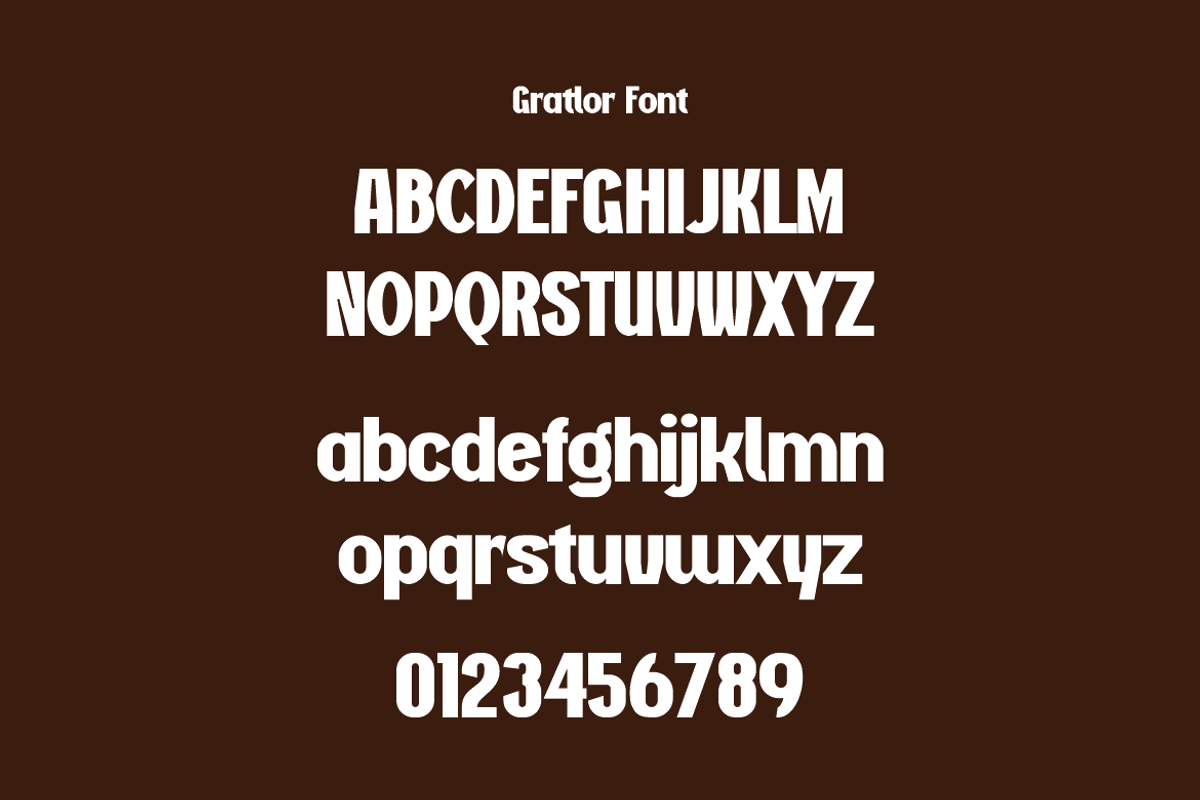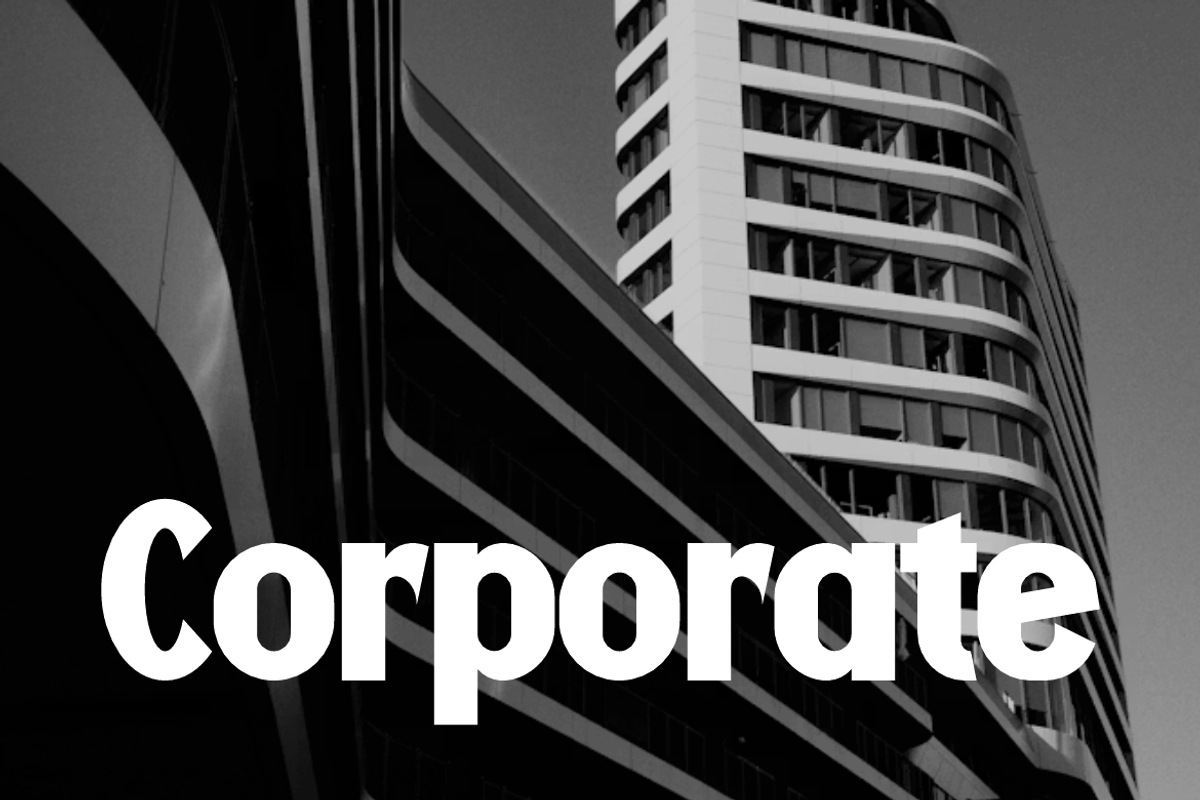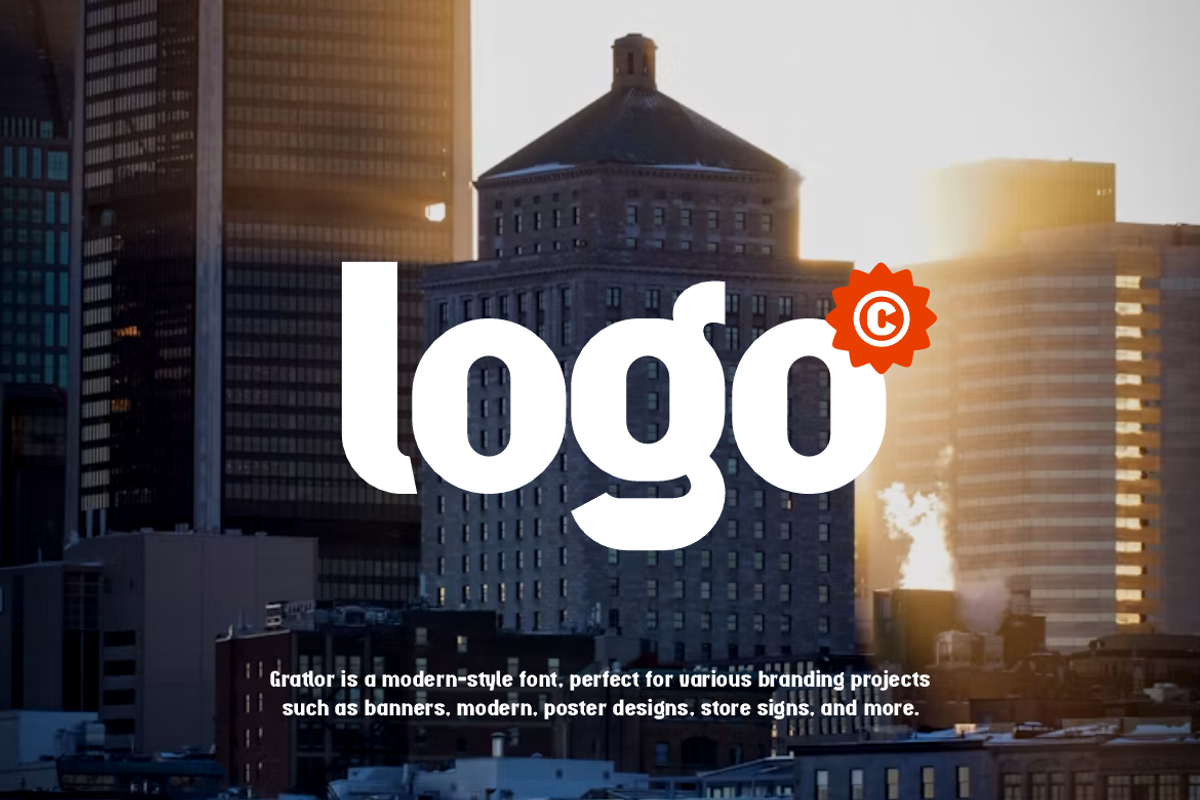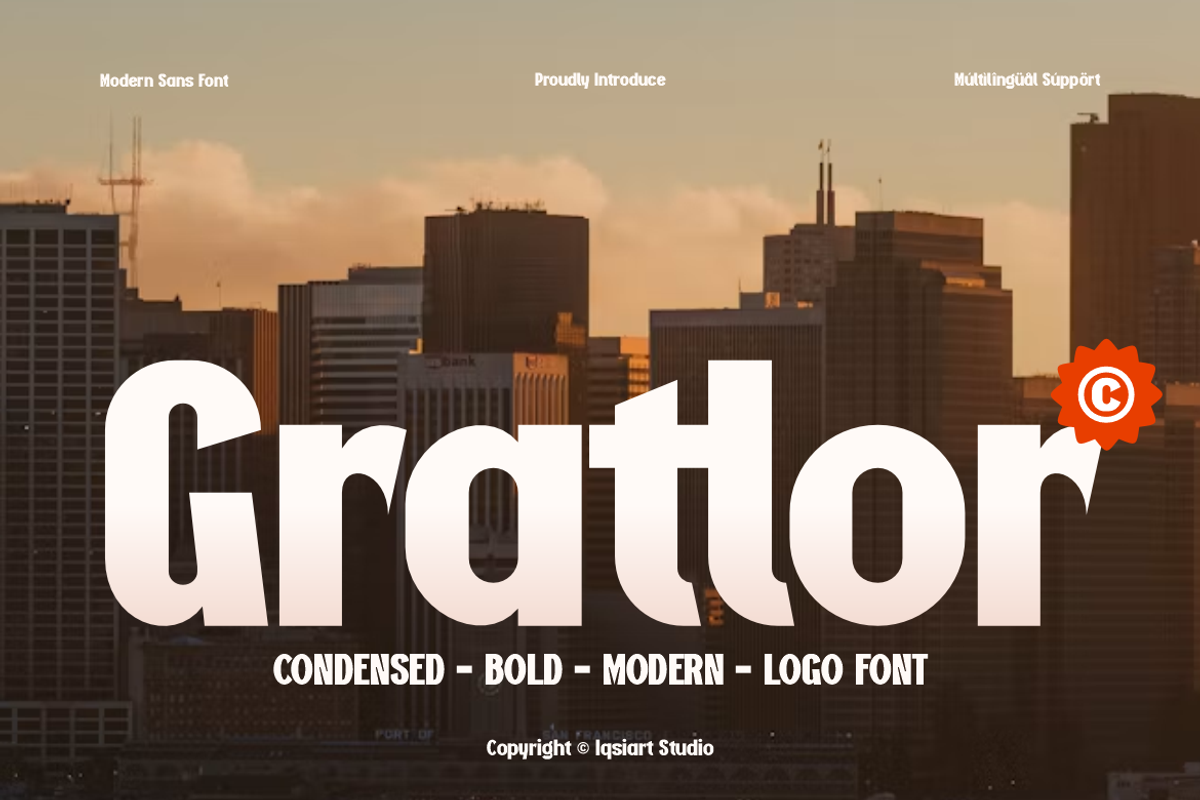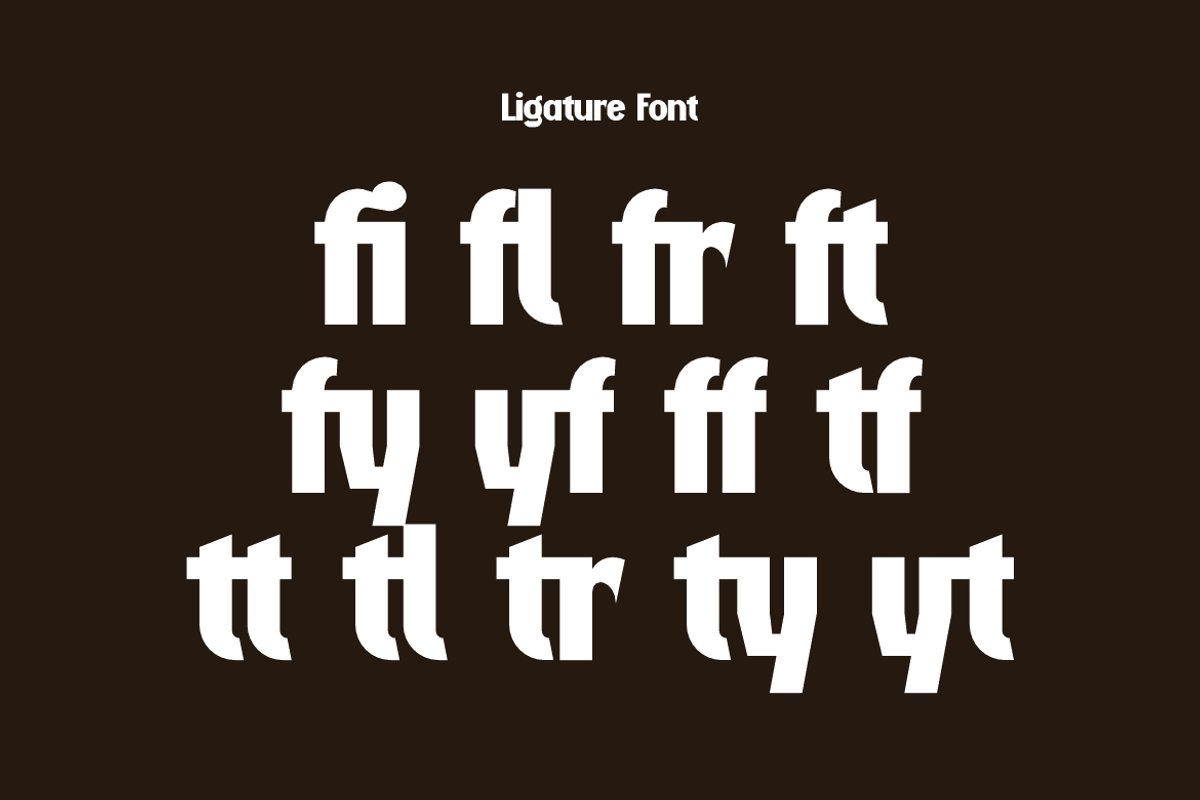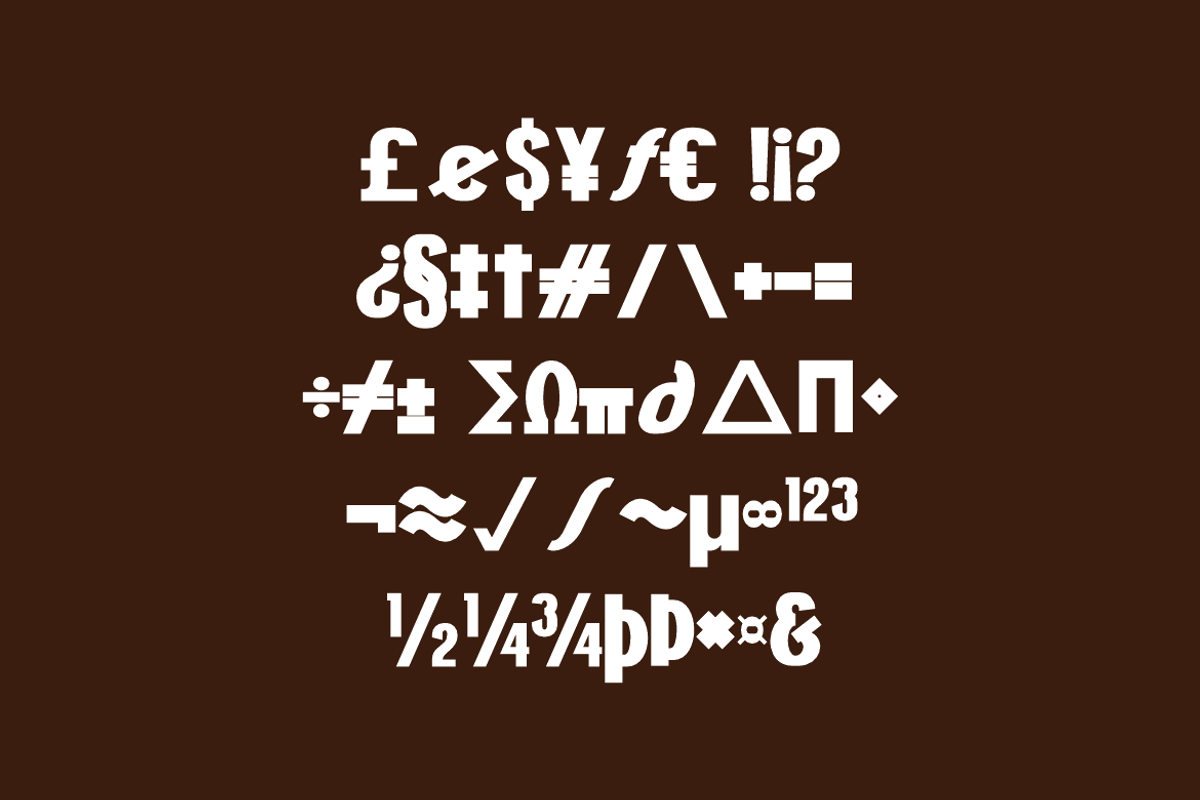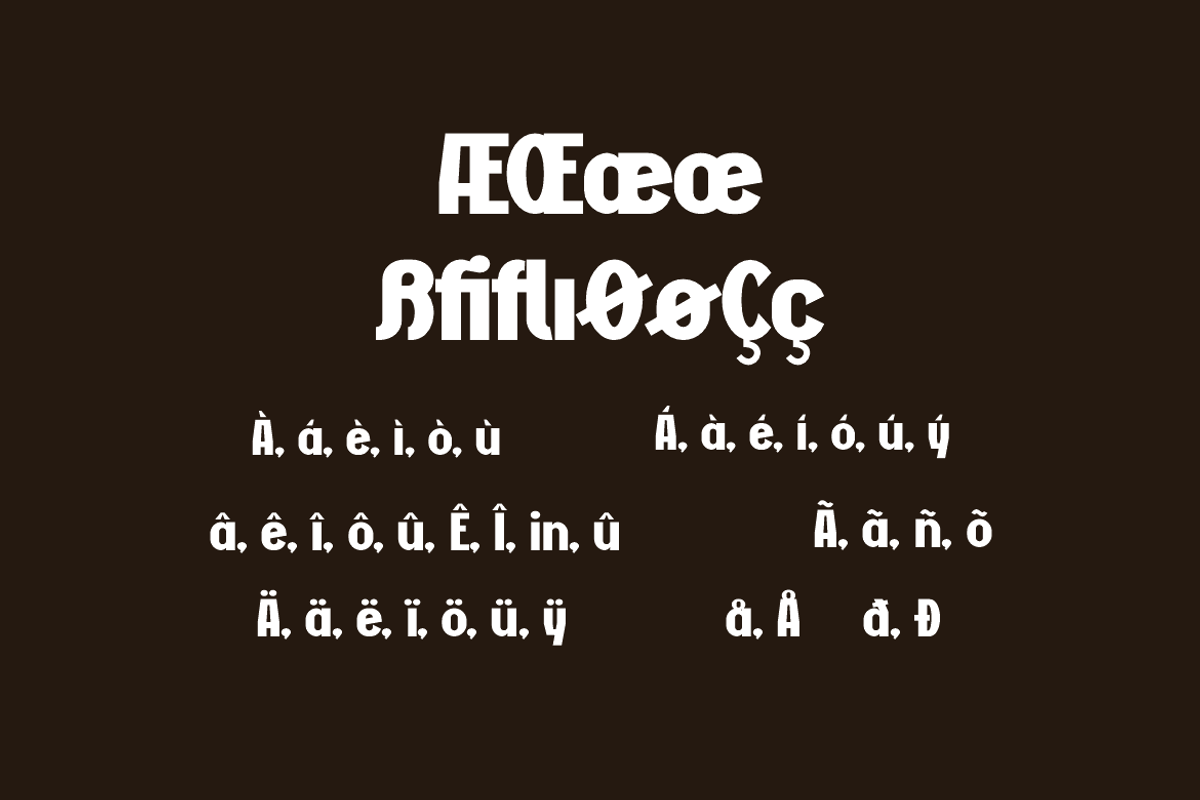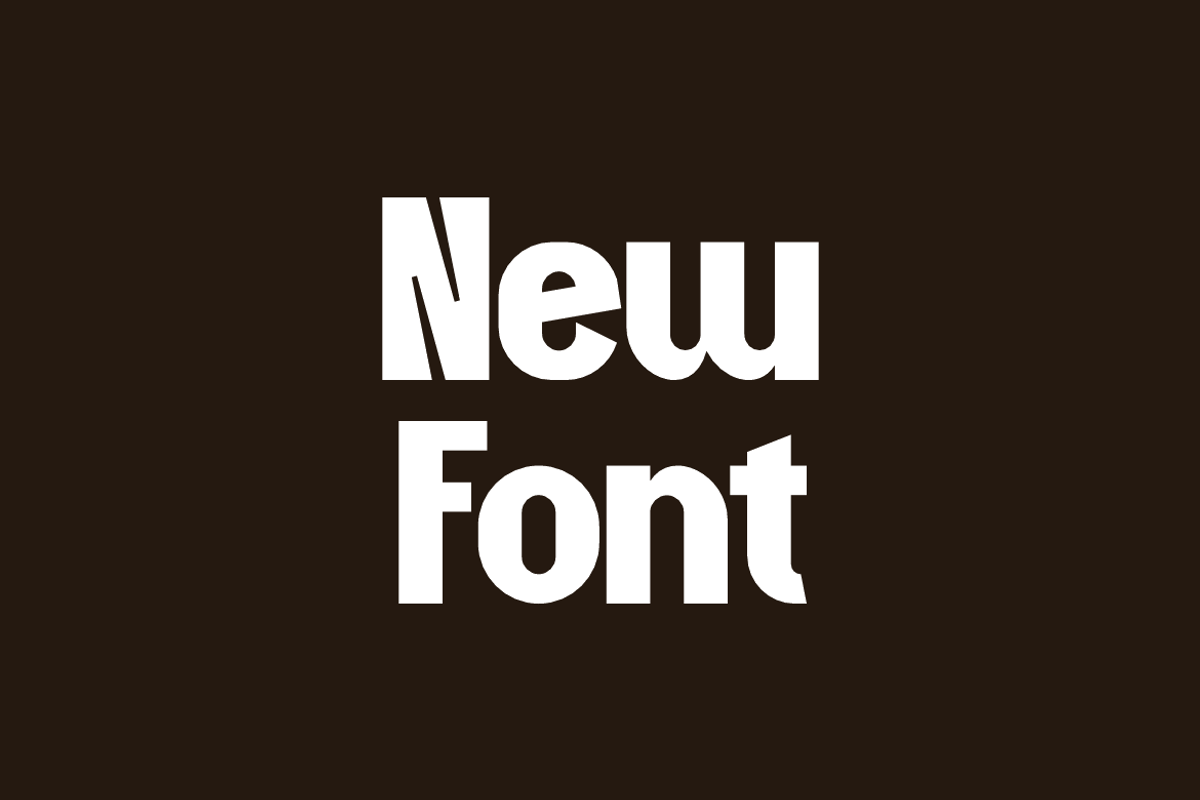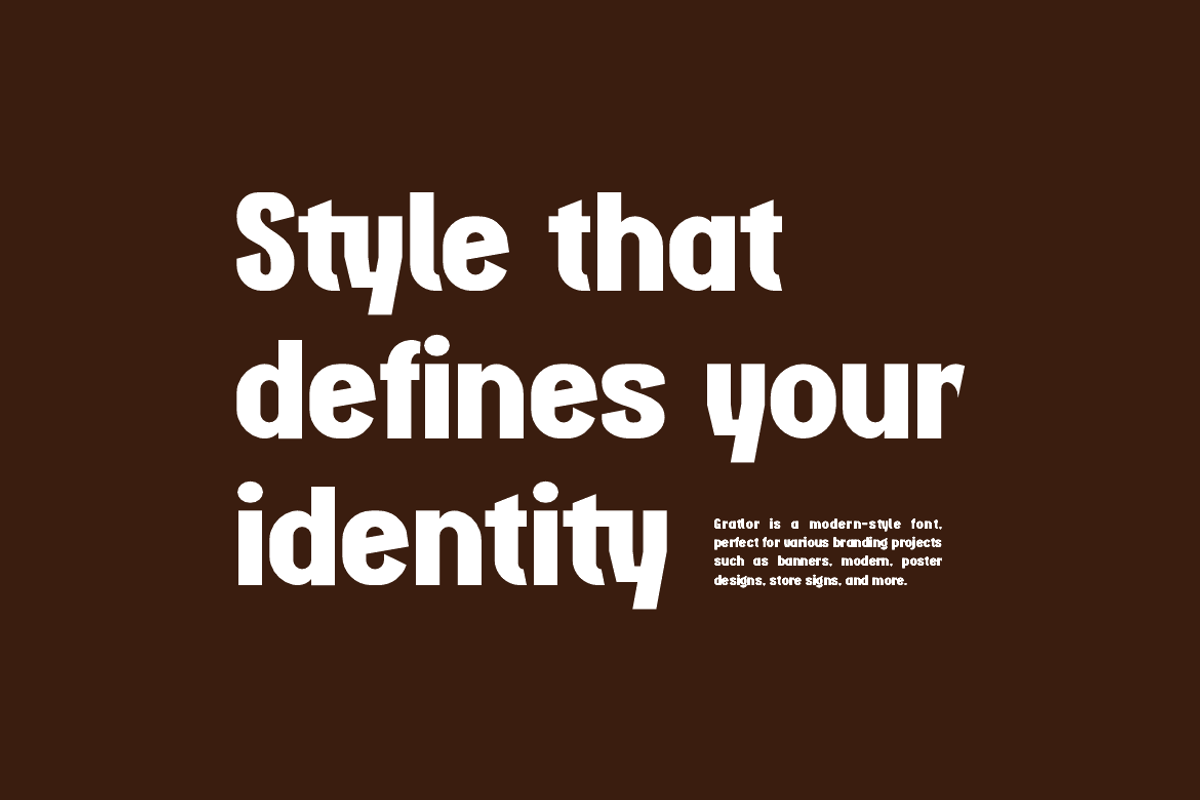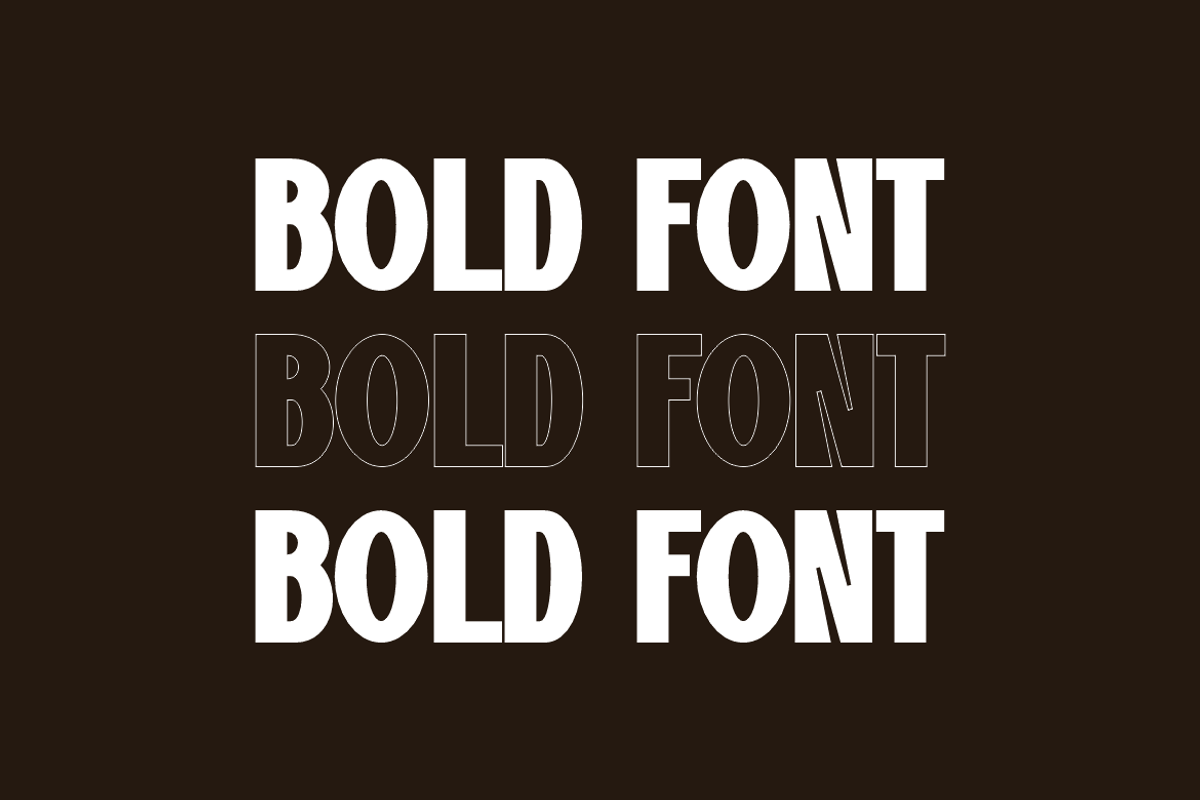
Gratlor - Bold Condensed Fonts
Gratlor Font is a modern and authentic display typeface
that suits a variety of design needs. We offer a wide range of themes